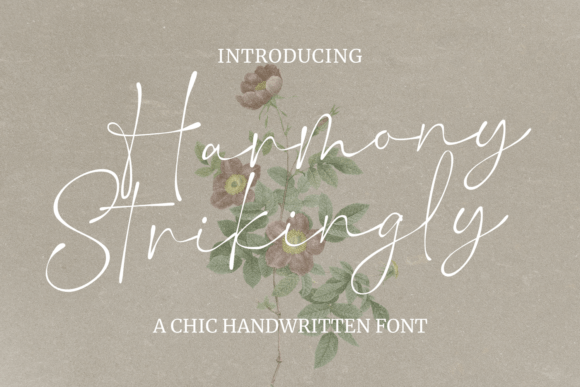
Introducing Harmony Strikingly, a script font that exudes elegance and sophistication. Crafted with precision, this font is designed to elevate your creative projects to new heights. Whether you're crafting wedding signs, designing logos, or creating elegant watermarks, Harmony Strikingly will leave a lasting impression.
Picture this: Your wedding invitations adorned with the flowing, delicate strokes of Harmony Strikingly. The font's graceful curves create an air of romance and charm, setting the perfect tone for your special day. Guests will be captivated by the beauty of your invitations, drawn in by the font's timeless appeal.
But Harmony Strikingly isn't limited to weddings. It's a versatile font that seamlessly adapts to various design projects. Imagine your business logo adorned with the striking, confident lines of Harmony Strikingly. The font's bold presence and clean lines convey a sense of professionalism and authority, leaving a lasting impression on potential clients.
With Harmony Strikingly, creativity knows no bounds. Use it to craft stunning signatures that add a touch of individuality to your documents, or incorporate it into your photography and artwork. The font's unique design adds depth and intrigue to any visual element, transforming ordinary images into captivating masterpieces.